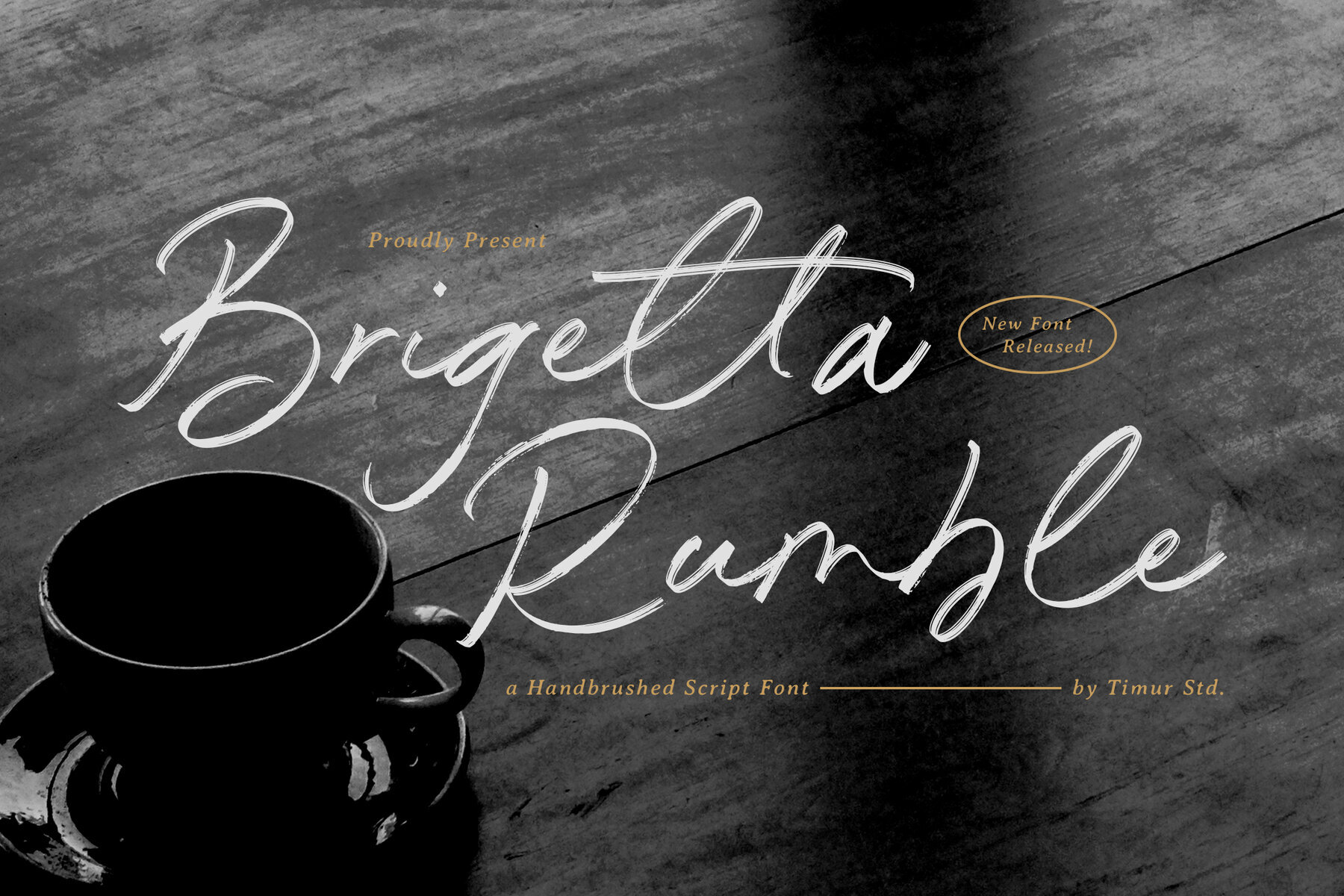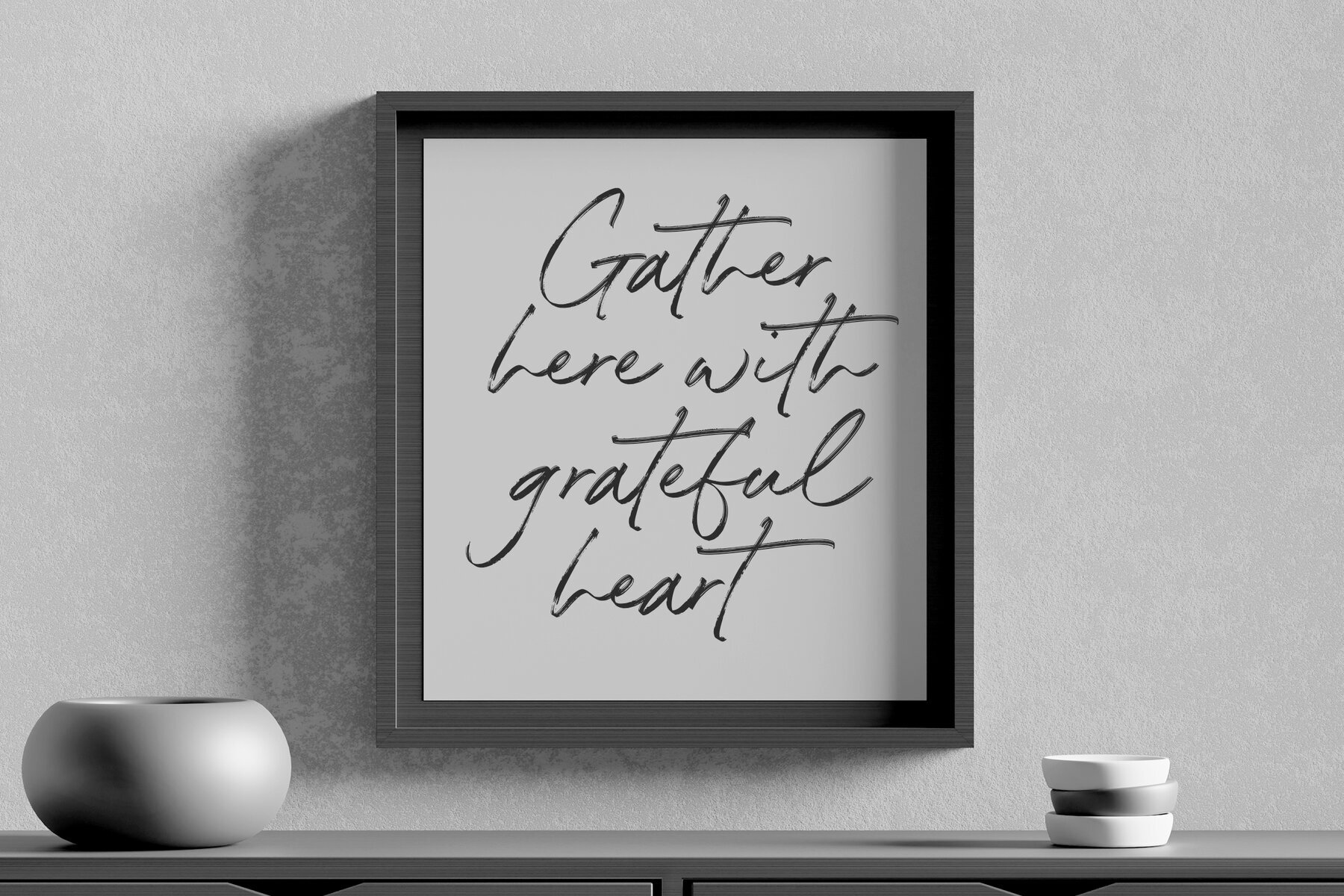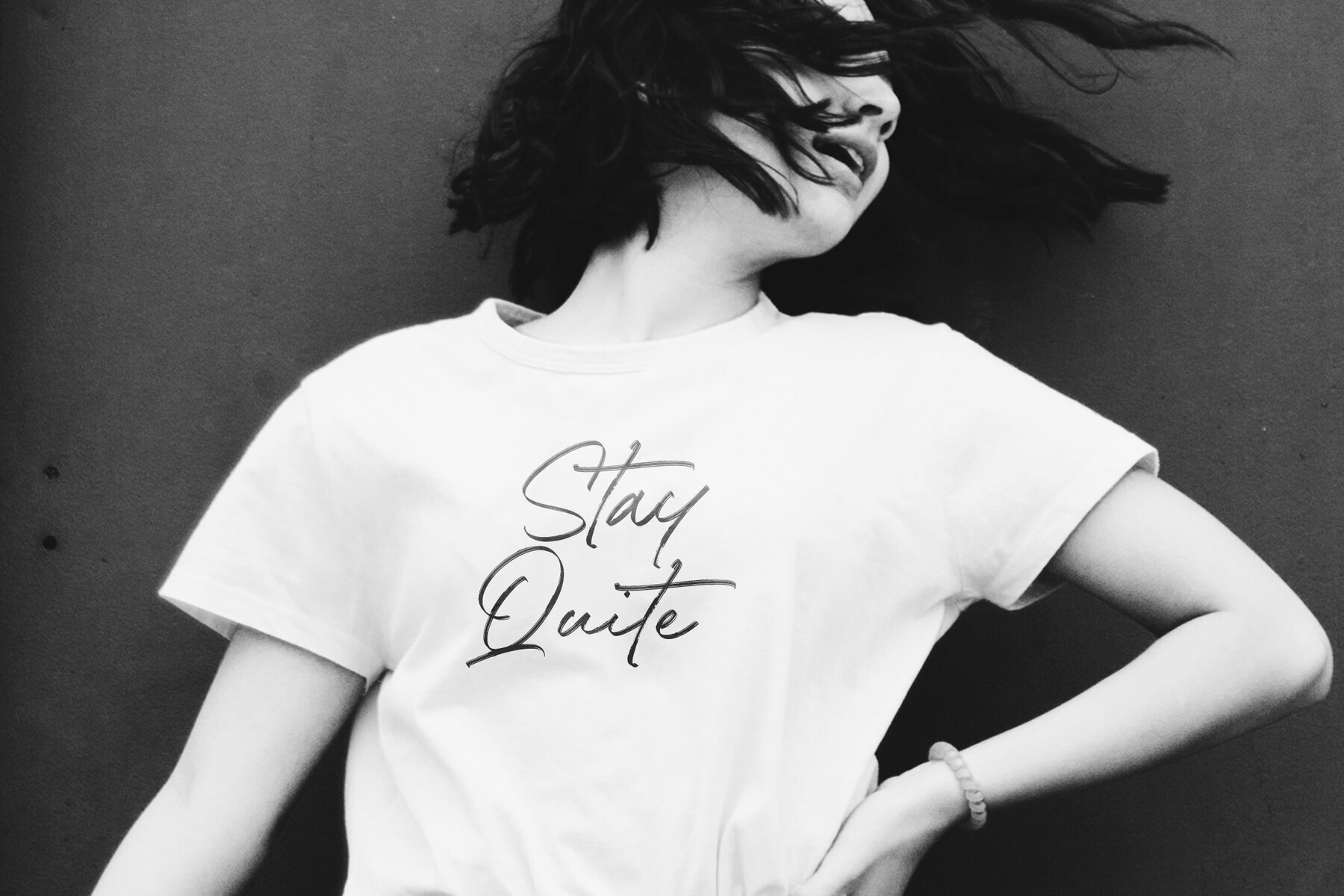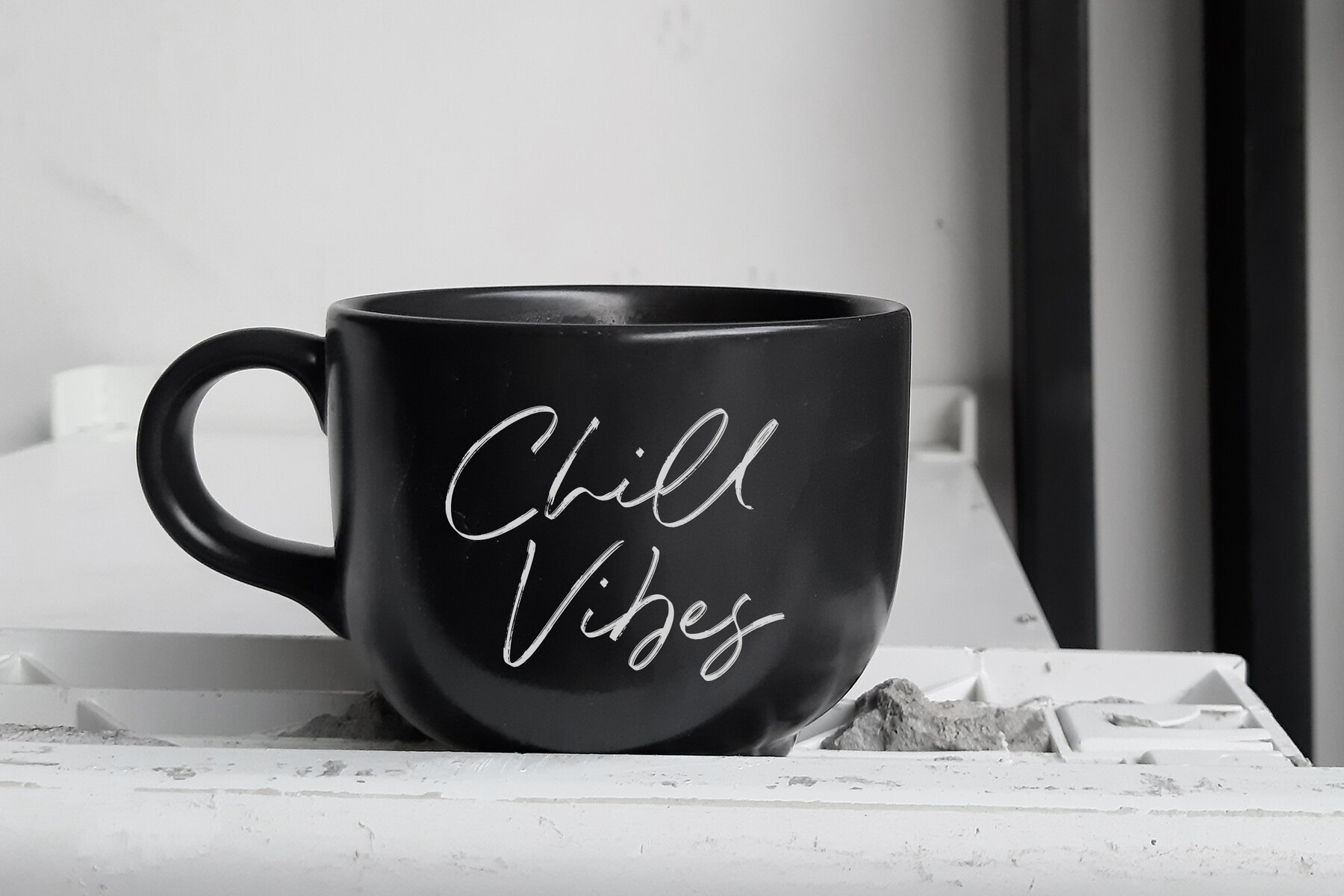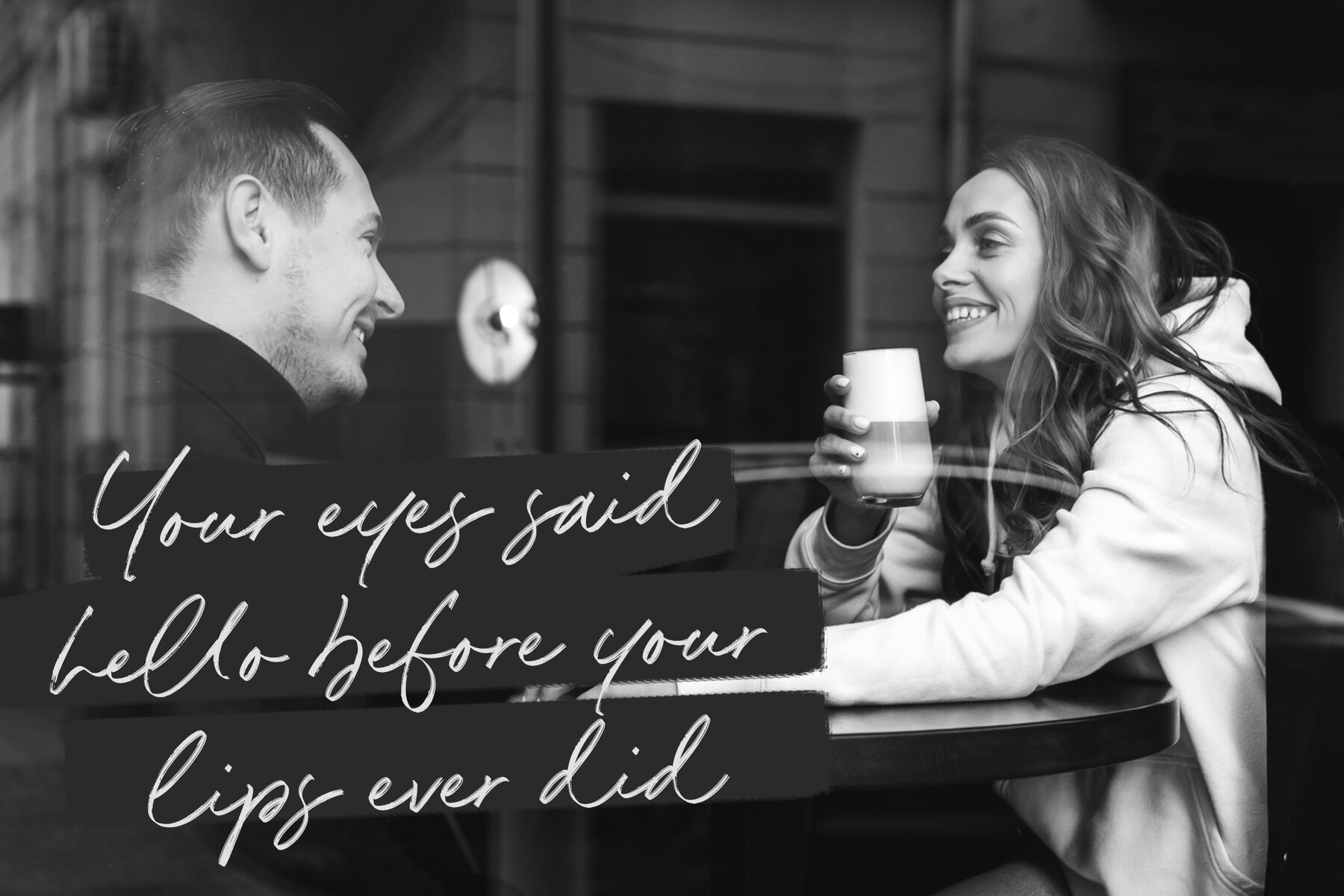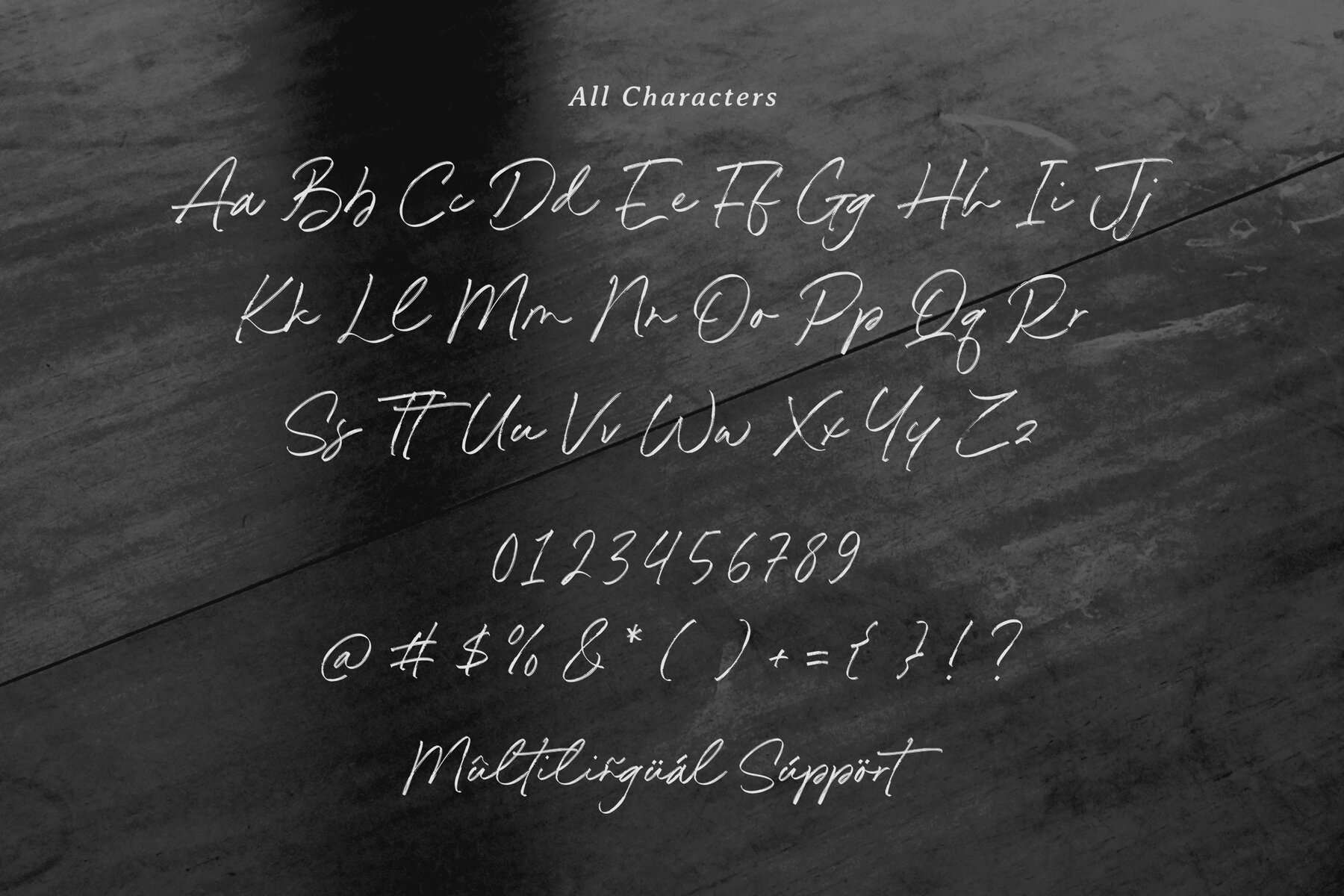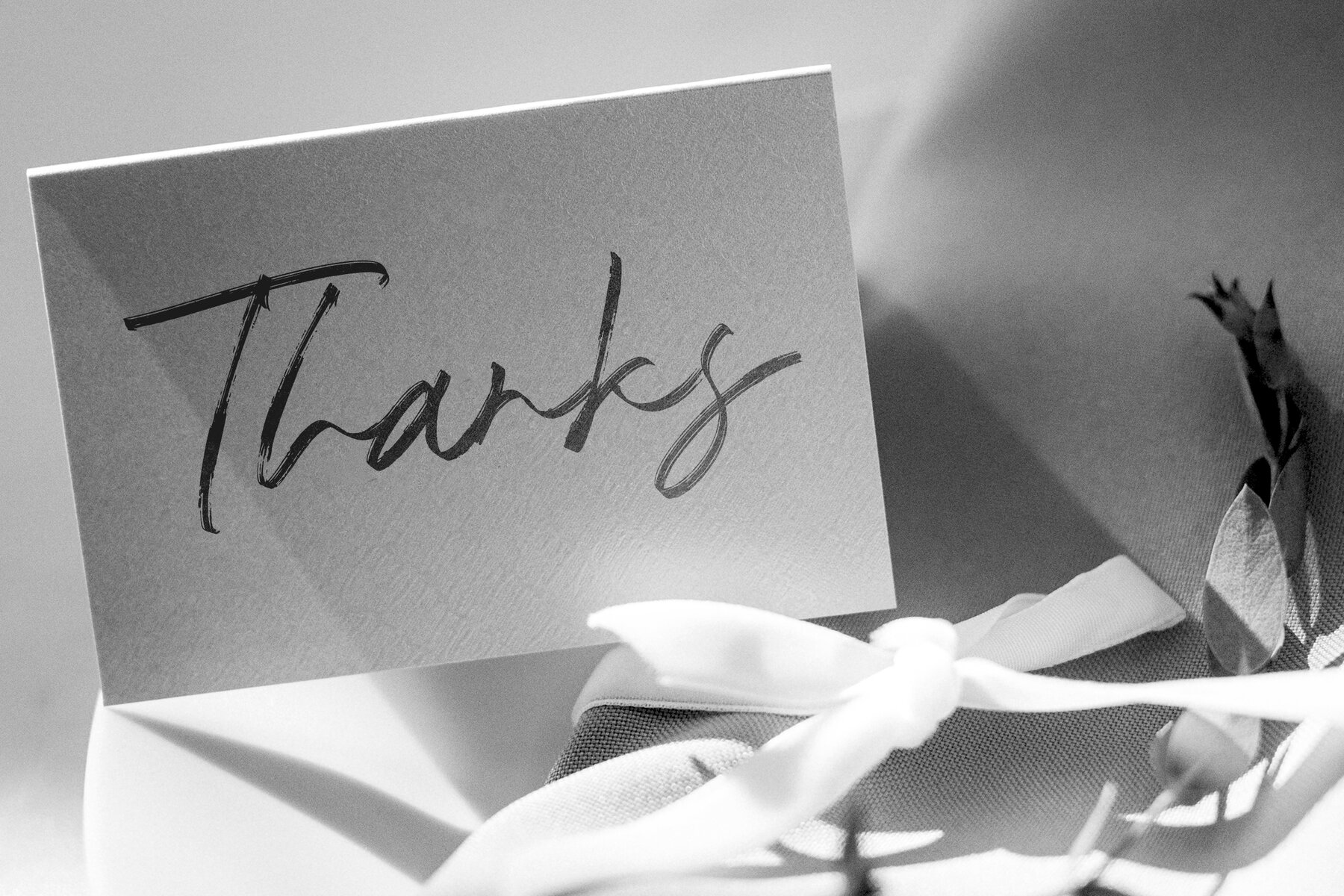
Brigetta Rumble Font
Brigetta Rumble
Discover Brigetta Rumble, a stylish handbrushed script font that blends bold strokes with smooth, natural curves. Crafted to evoke modern elegance and creativity, this font is ideal for logos, branding, and artistic typography. Its organic brush style lends a handcrafted touch to any design. Perfect for crafting unique social media graphics, Brigetta Rumble's fluid design enhances both readability and aesthetic appeal. With multilingual support, it effortlessly adapts to various languages, making it versatile for global applications.Brigetta Rumble: A Handbrushed Script Font